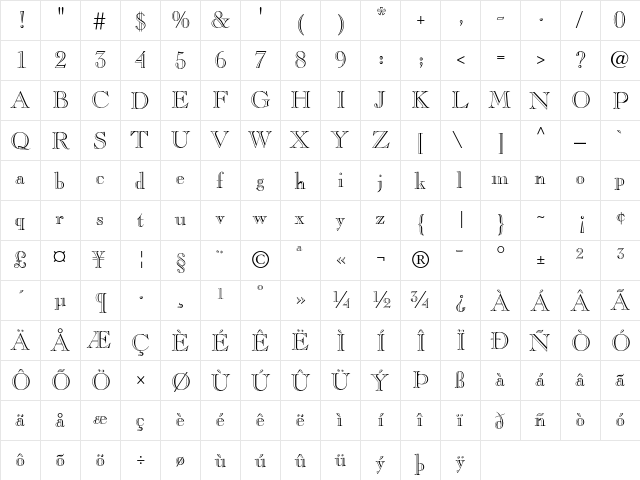
Caslon Open Face Regular
Design Context for Caslon Open Face Typeface
Caslon Open Face offers clean, dependable letterforms without strong stylistic allegiance, making it a practical choice for designers who need flexibility.